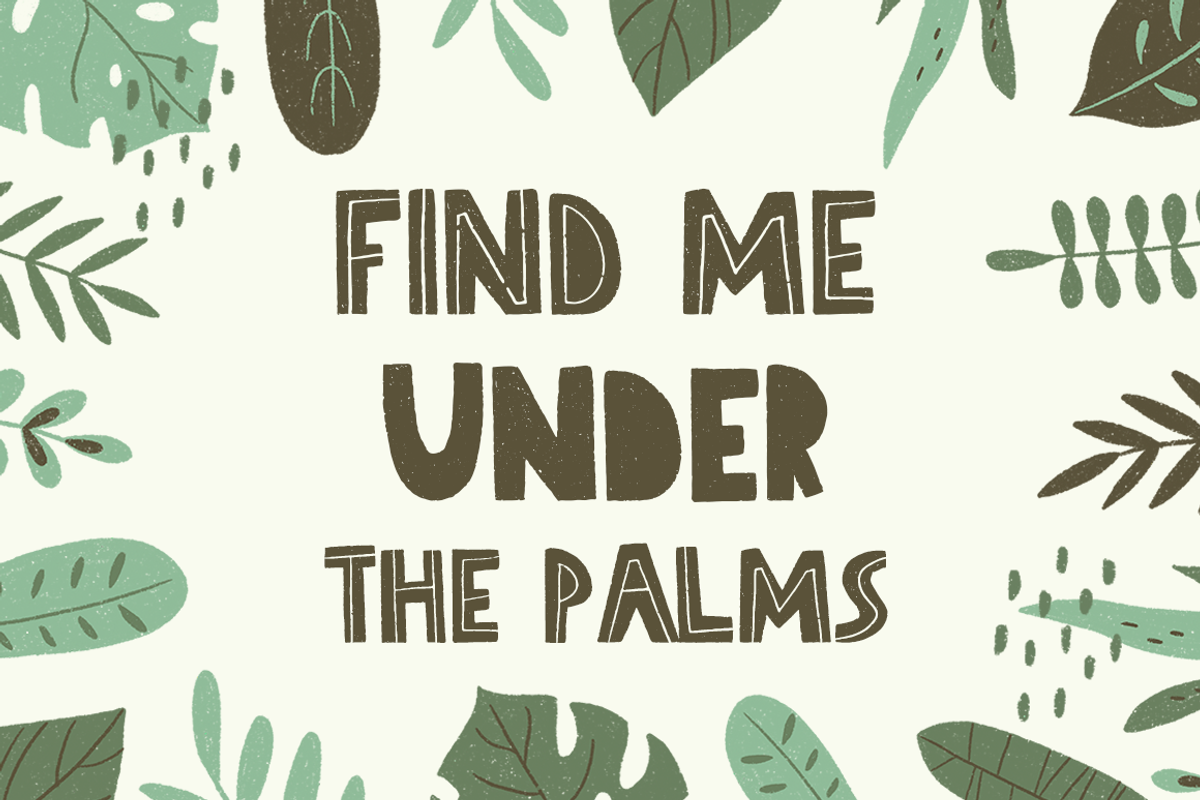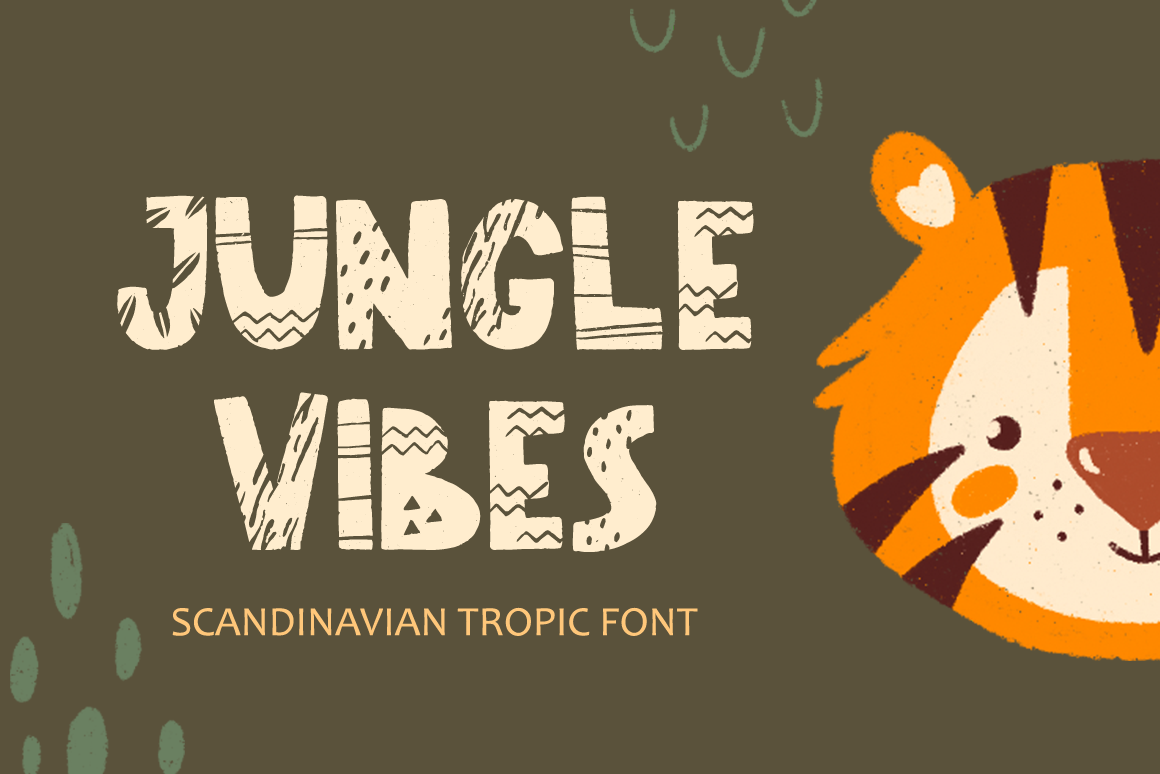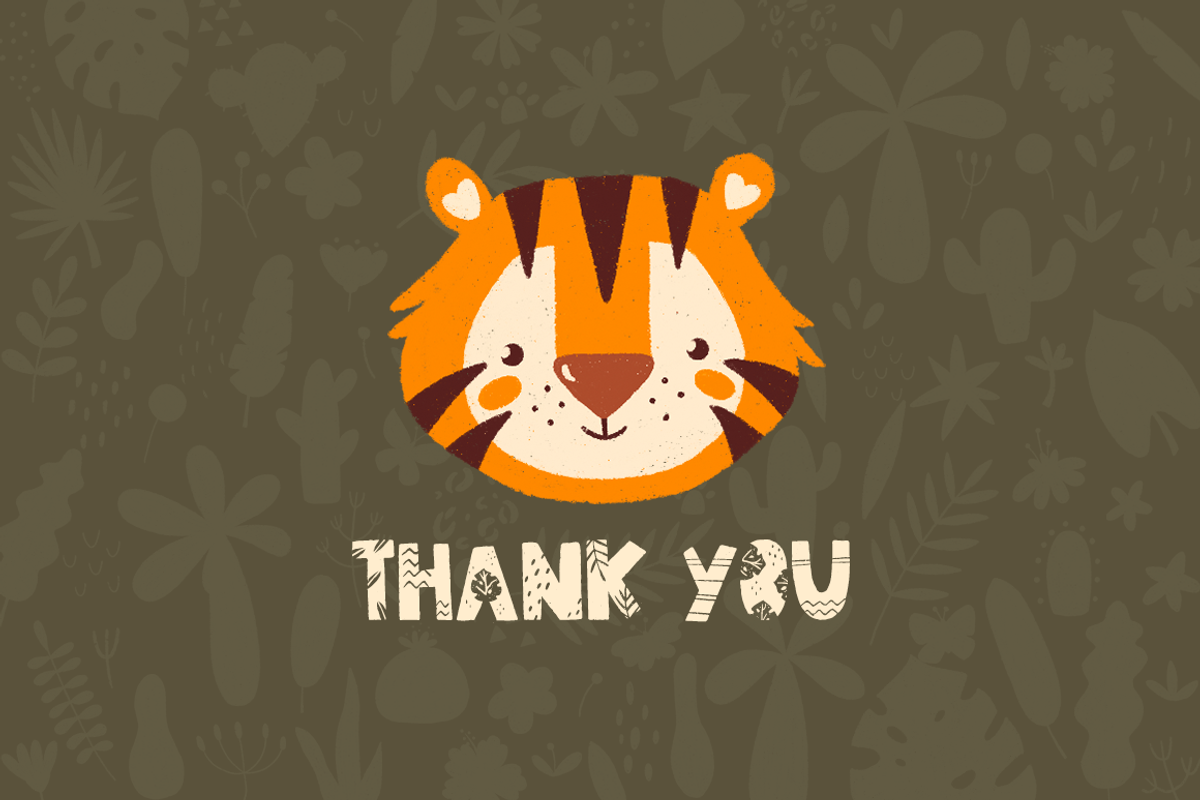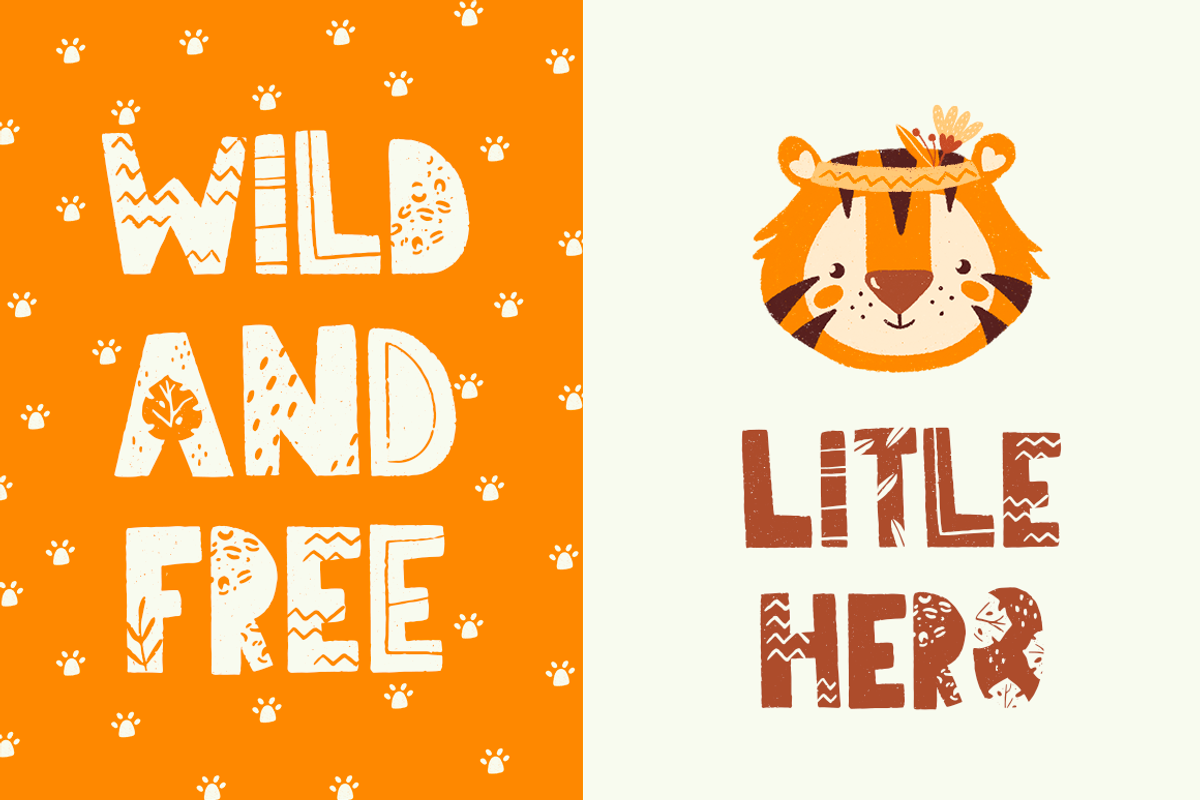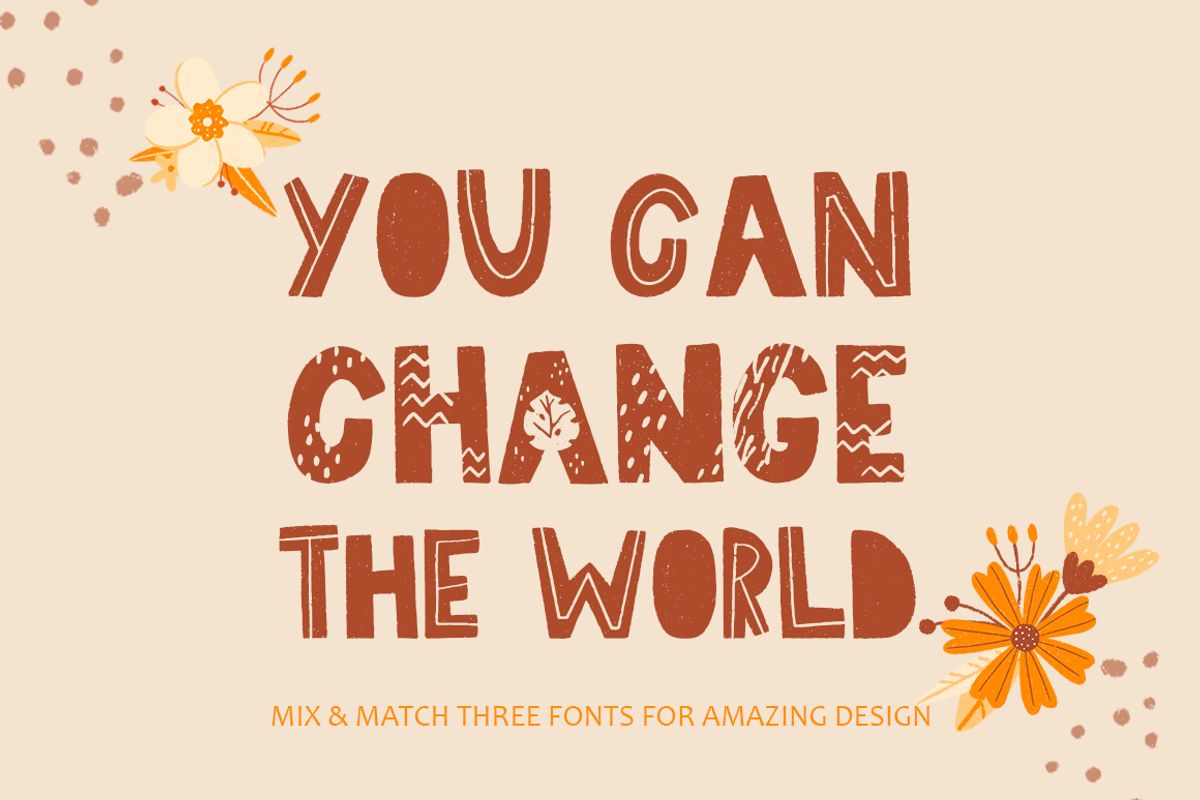
Jungle Vibes • Font Family
Jungle Vibes • Font Family is a stylish hand-drawn display font family. I was inspired by children's Scandinavian motifs and the theme of the tropics and safari. This font family is perfect for decorating the theme party, for children's jungle products, blogs, safari web-design, posters, tropic greeting cards and much more!
- Jungle Vibes Font Family included 3 fonts: decorative, black and line
- Latin set A-Z in 3 alternatives in total, you can mix it to create a unique design
- Cyrillic set А-Я also in 3 variations
- International characters also in 3 variations
- Numerals & Punctuation also in 3 variations
- This is ONLY uppercase.